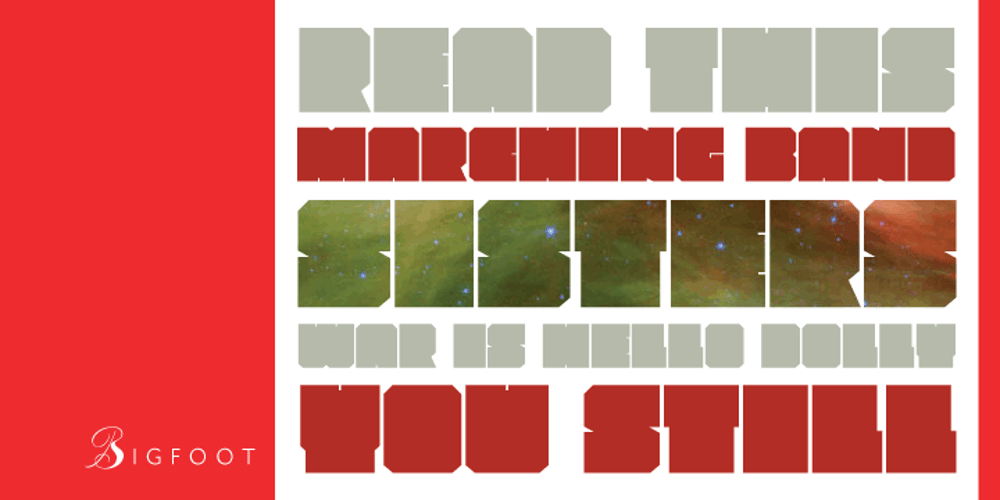
Bigfoot Font Family was designed by Patrick Griffin and published by Canada Type. Bigfoot contains 1 styles and family package options. Bigfoot is the fattest font ever made. It began as a simple exercise given to students in a design course: Most people don’t appreciate type because they don’t really know what it actually is. One way to understand it is looking at it like a combination of sculptures that have to work together to achieve a certain harmony, where each letter form is one of those sculptures. Most people understand and appreciate that a sculpture starts from a rock of an incomprehensible form, which is manipulated by someone into becoming the recognizable or abstract work of art it eventually is. Consider type design a kind of two-dimensional sculpting. You have a rectangle. Take away as a little as possible from it until it is recognizable as the letter A. Repeat to get the letter B, and so on. After all 26 minimal letters are made, do they actually function as an alphabet to build words and sentences that are recognizable to the human eye? This exercise can trigger thoughts and theories about the overall subjective nature of identifying abstract yet somewhat familiar shapes. It can go into the psyche of art in general. But one thing for certain, this exercise has so far helped a few people find a new appreciation for finely crafted typefaces. If you are a design educator, your students’ typographical perspective and arguments would benefit from it. And if you are a designer, well, fat faces are all the rage these days, and this is as fat as it can get. Please note that that this typeface, due to its minimalistic nature, does not include accented characters. It does however support the full C0 Controls and Basic Latin Unicode set. All proceeds from this font go to support the Type Club of Toronto.